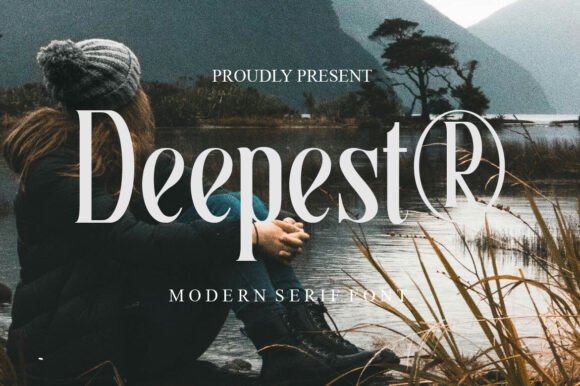
Introducing Deepest Font: Elevate Your Designs with Modern Elegance
In the world of typography, fonts play a crucial role in conveying the message and aesthetic of a brand or design. With numerous fonts available, finding the perfect one that combines style, versatility, and professionalism can be a daunting task. However, if you’re looking for a modern serif font that can elevate your designs, look no further than Deepest Font. Manufactured by Gunalocraft, Deepest Font is an exceptional typeface designed to meet the demands of various projects, from logos and wedding typography to magazine covers and digital designs.
Key Features of Deepest Font
- Modern Serif Design: Deepest Font boasts a contemporary serif design that adds a touch of sophistication to any project.
- Versatility: This font is ideal for a wide range of applications, including logos, wedding typography, quotes, magazine or book covers, website headers, clothing, branding, packaging design, and more.
- Professionalism: With its clean lines and elegant curves, Deepest Font brings a level of professionalism to your designs, making them stand out from the crowd.
Ideal Design Applications for Deepest Font
Deepest Font’s versatility makes it suitable for various design projects. Here are some of the ideal applications:
- Logos: Create a lasting impression with a logo that incorporates Deepest Font, perfect for businesses, events, or personal branding.
- Wedding Typography: Add a touch of elegance to wedding invitations, programs, and other stationery with Deepest Font’s beautiful serifs.
- Typography Quotes: Make inspirational quotes, sayings, or phrases stand out with Deepest Font’s modern and sophisticated design.
- Magazine or Book Covers: Use Deepest Font to create eye-catching covers for magazines, books, or e-books that convey a sense of professionalism and style.
- Website Headers: Elevate your website’s design with Deepest Font, perfect for headers, titles, or other prominent text elements.
- Clothing and Apparel: Design stunning apparel, such as t-shirts, hoodies, or tote bags, with Deepest Font’s modern and trendy aesthetic.
- Branding and Packaging: Create cohesive branding and packaging designs that reflect your brand’s personality with Deepest Font.
- Fashion-Related Branding: Deepest Font is particularly suitable for fashion-related branding, such as clothing labels, accessories, or beauty products.
- Editorial Design: Use Deepest Font to create visually appealing editorial designs, including posters, flyers, or social media posts.
- Digital Design: Incorporate Deepest Font into your digital designs, such as presentations, infographics, or email newsletters, for a professional look.
Benefits of Using Deepest Font
By incorporating Deepest Font into your designs, you can enjoy several benefits:
- Unique and Memorable: Deepest Font’s modern serif design ensures your designs stand out and are memorable.
- Flexibility: With its wide range of applications, Deepest Font offers flexibility and versatility in your design projects.
- Professionalism: Deepest Font brings a level of sophistication and professionalism to your designs, making them more effective.
- Easy to Read: The font’s clean lines and elegant curves ensure that your text is easy to read, even at smaller sizes.
Tips for Using Deepest Font Effectively
To get the most out of Deepest Font, consider the following tips:
- Pair with Other Fonts: Experiment with pairing Deepest Font with other fonts to create visually appealing combinations.
- Adjust Font Sizes: Play with font sizes to create visual hierarchy and emphasize important text elements.
- Use Colors Wisely: Select colors that complement Deepest Font’s design and enhance the overall aesthetic of your project.
- Experiment with Styles: Take advantage of Deepest Font’s various styles, such as bold or italic, to add emphasis and create visual interest.
In conclusion, Deepest Font is an exceptional modern serif font designed to elevate your designs. With its versatility, professionalism, and unique aesthetic, Deepest Font is perfect for a wide range of projects. Whether you’re a designer, entrepreneur, or simply looking for a stylish font, Deepest Font is an excellent choice. Make your designs more modern and professional with Deepest Font, and experience the difference it can make in your visual creations.